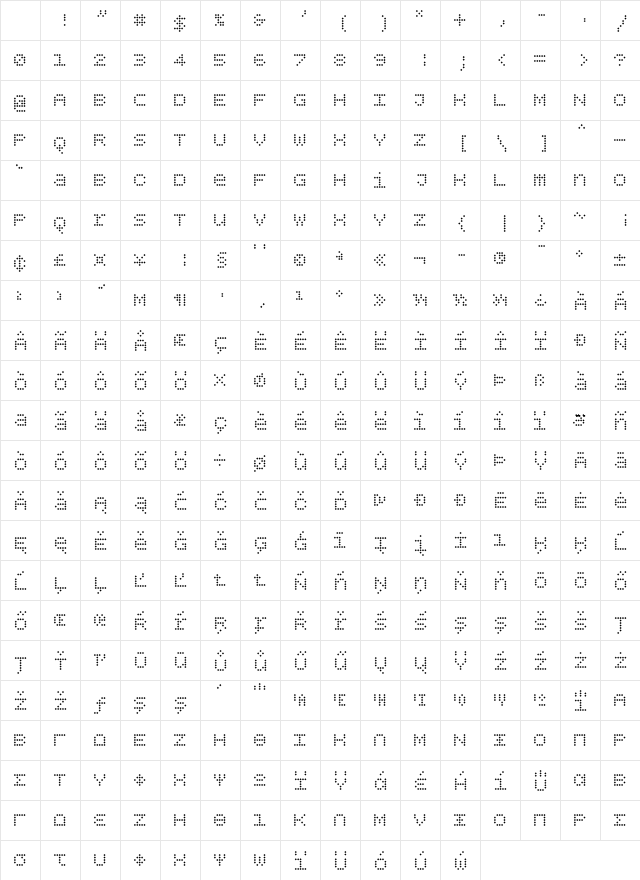
Complete BPdotsUnicaseDiamond Regular glyph index. Displaying only characters natively supported by BPdotsUnicaseDiamond Regular font.
BPdotsUnicaseDiamond is rooted in pixel-grid construction, making it a natural fit for game UI, retro computing aesthetics, and digital nostalgia projects.
Pro Tip: Use BPdotsUnicaseDiamond at sizes that align with its pixel grid for the sharpest rendering - scaling to non-integer multiples can introduce unwanted blur.